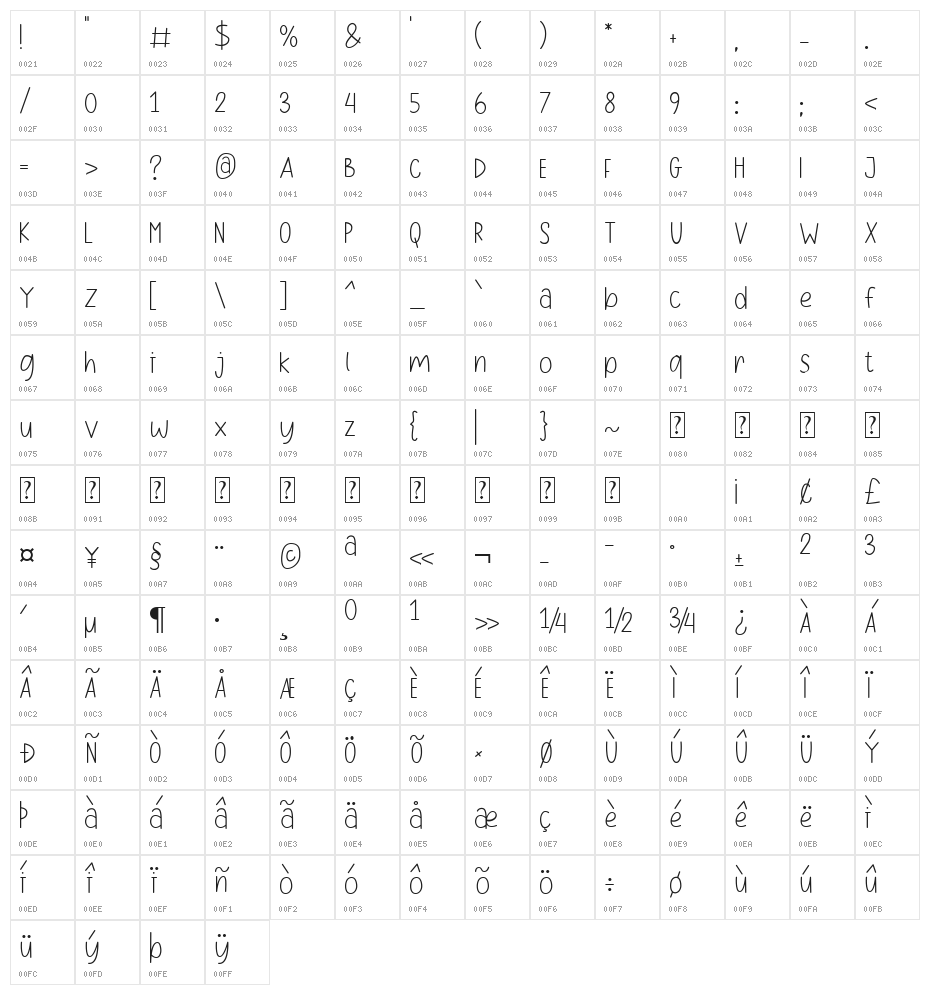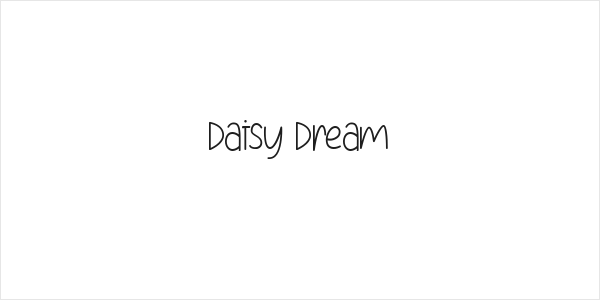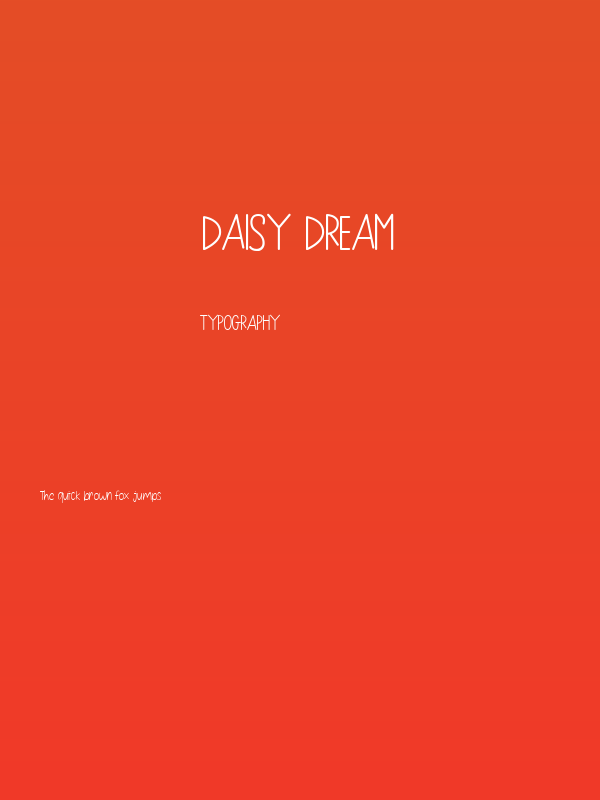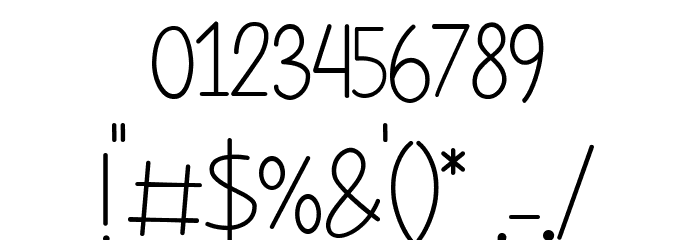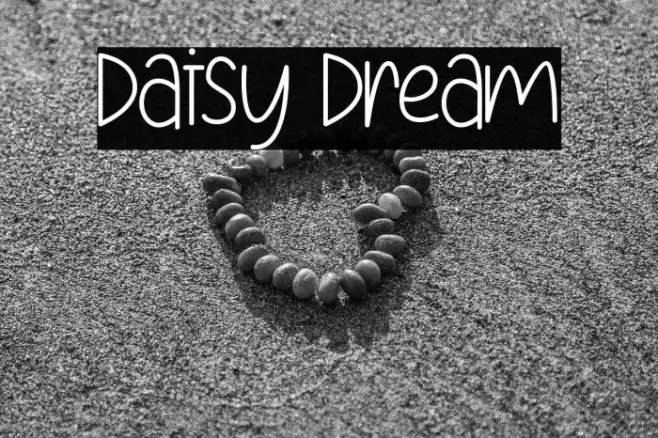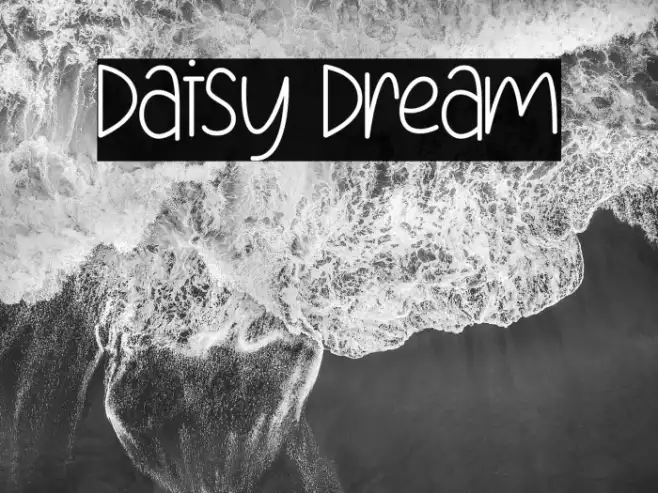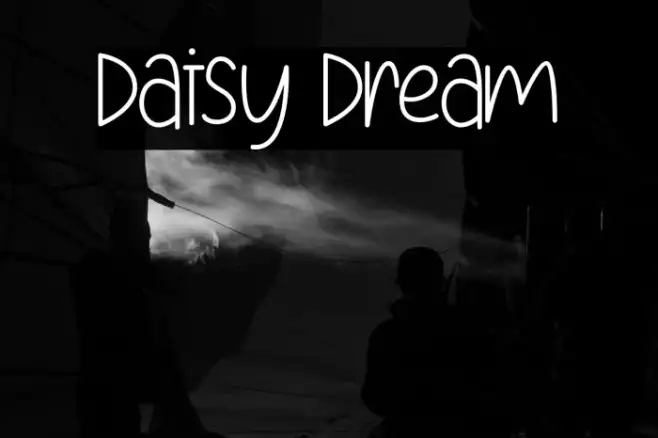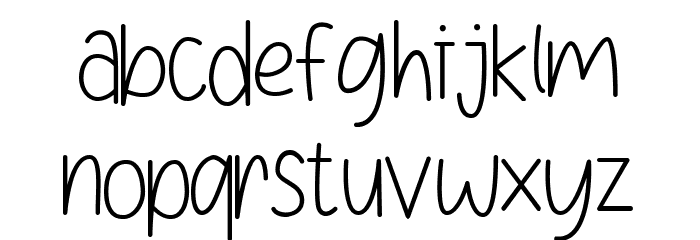
Daisy Dream Font
Daisy Dream Description
This playful and whimsical font features a handwritten style with a casual and friendly appearance. The characters are slightly rounded with a consistent stroke width, giving it a smooth and approachable look. The uppercase letters are tall and narrow, while the lowercase letters maintain a consistent height, adding to the font's readability. Numbers and special characters are designed to match the playful aesthetic, making it suitable for informal and creative projects. The font's overall style is charming and light-hearted, perfect for adding a touch of personality to any design.
| Overall Style | Playful |
| Use Case | Headlines, Logos, Invitations |
| Proposed Projects | Ideal for children's books, greeting cards, invitations, and playful branding. |